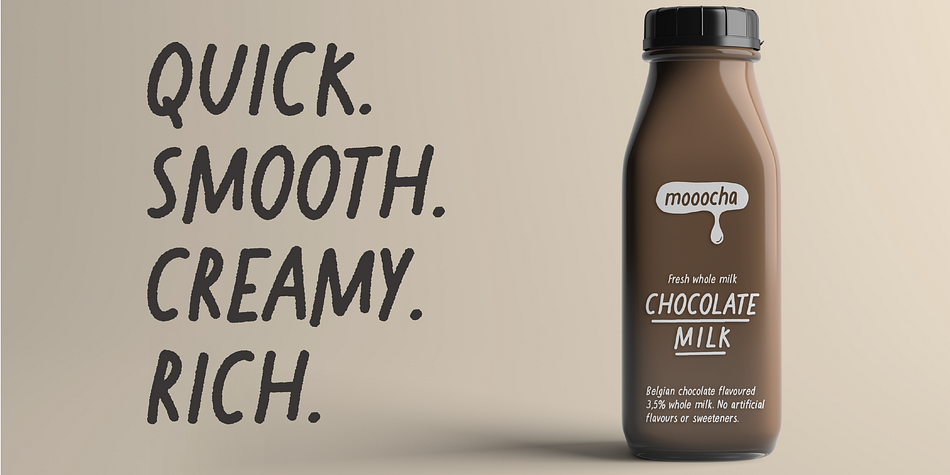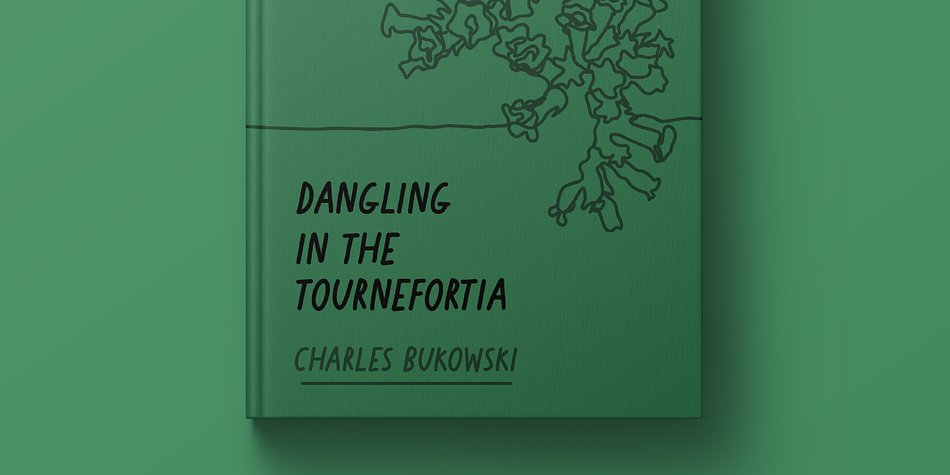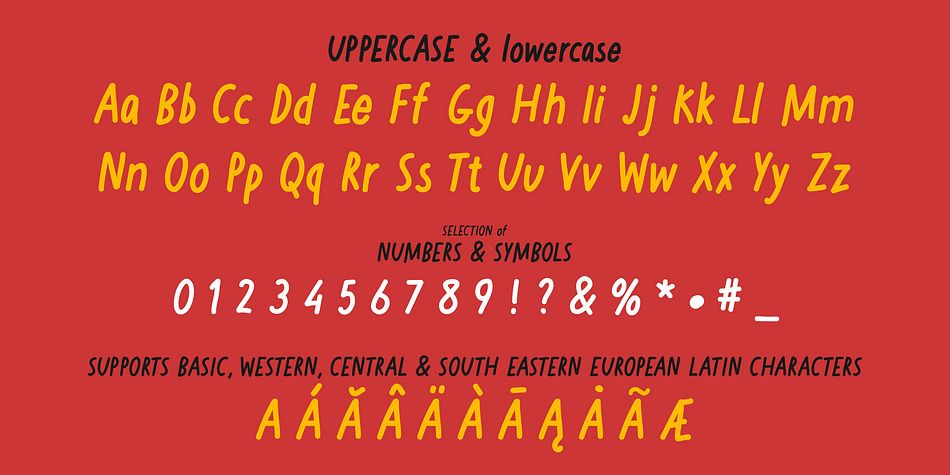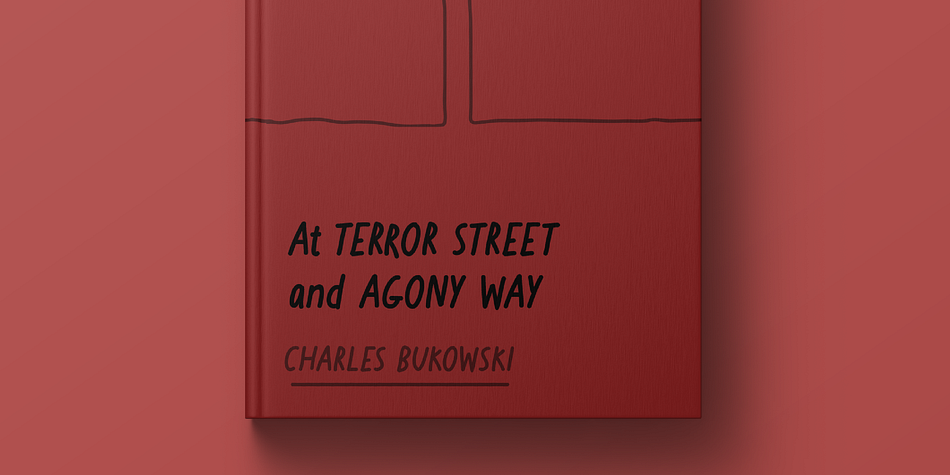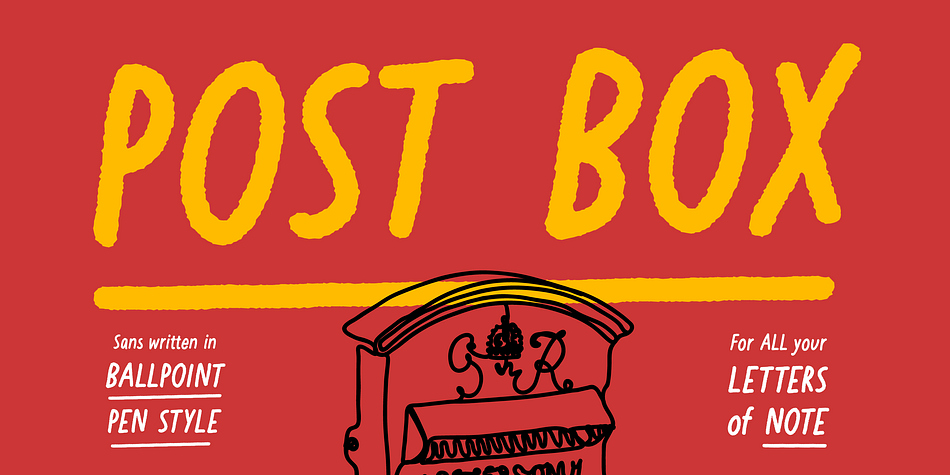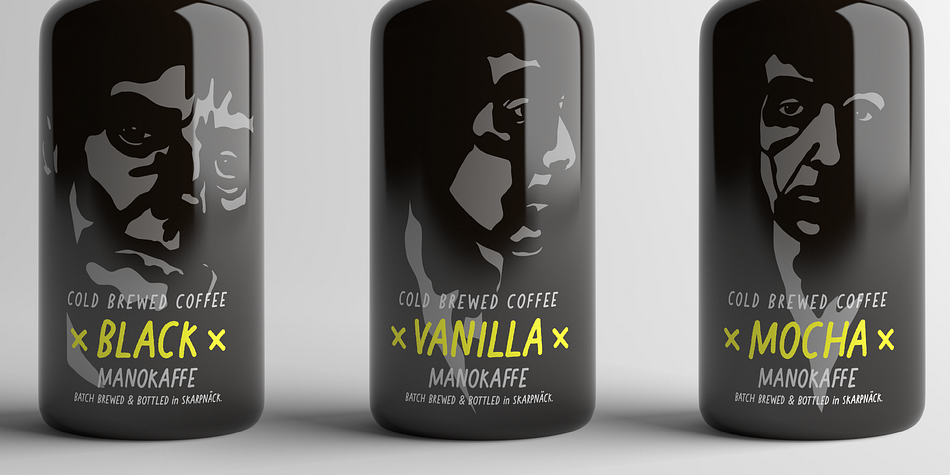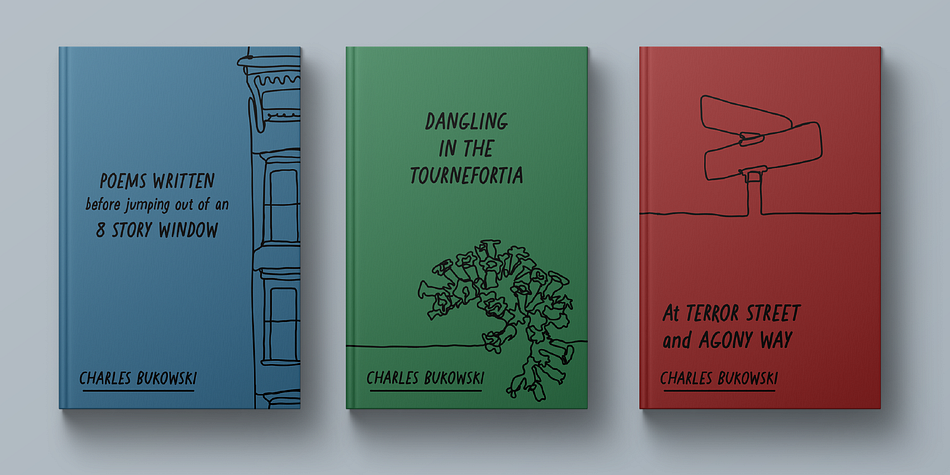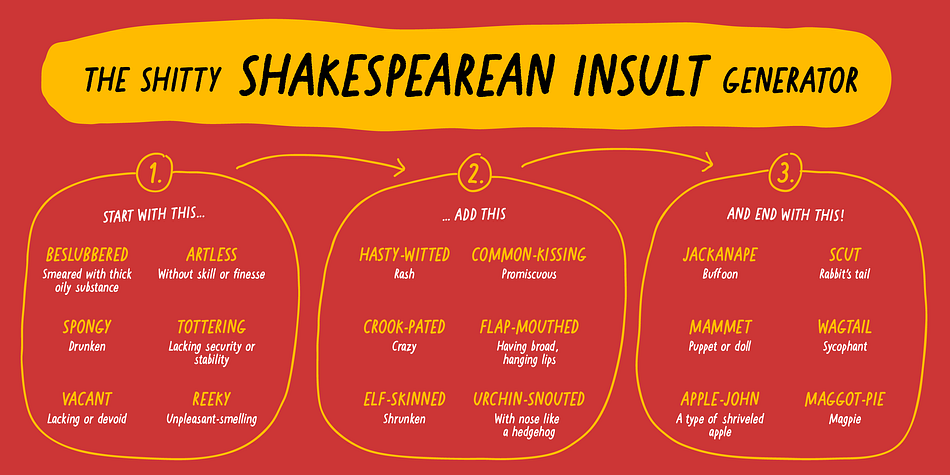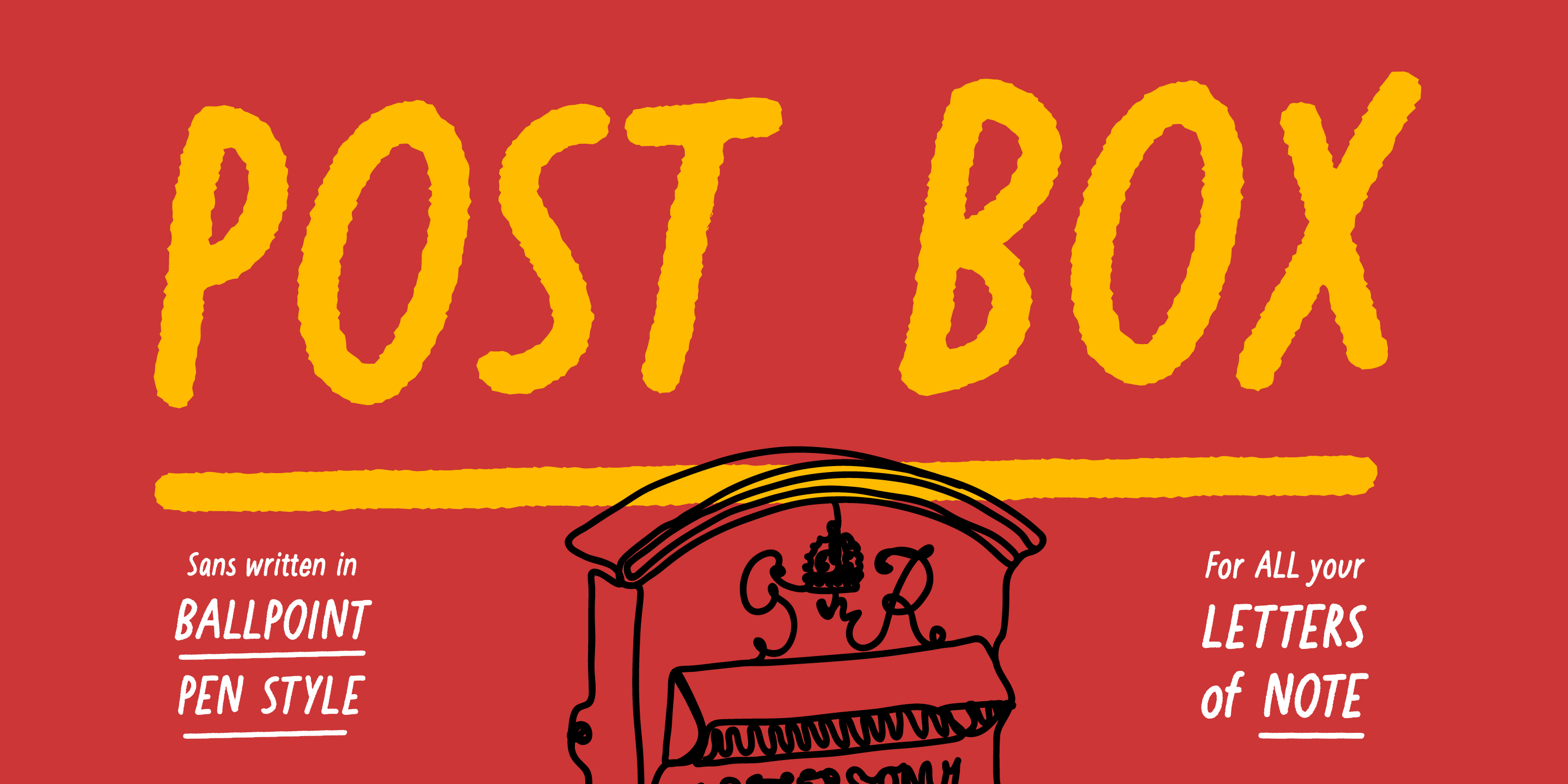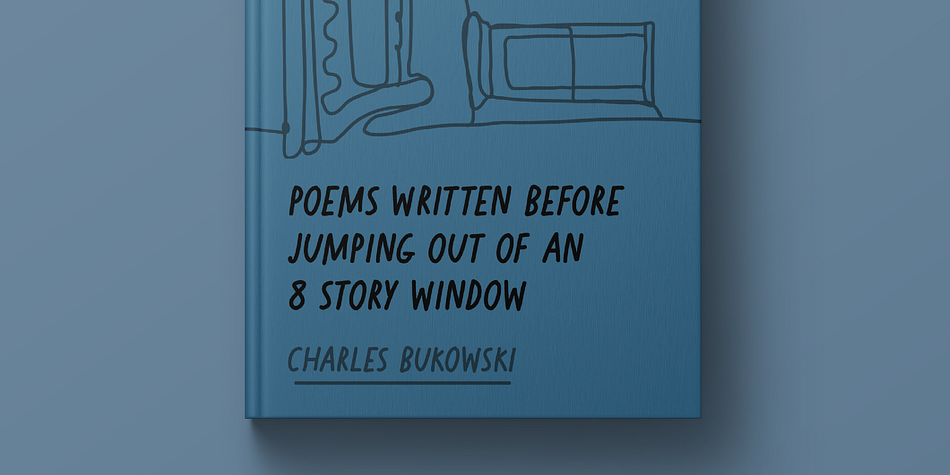
Designed by Daniel Feldt, Post Box is a hand drawn font family. This typeface has two styles and was published by Great Scott.
Written in a ballpoint pen style Post Box is a neighborly sans serif is slightly condensed and slanted. Scribbled quickly but readable. Exact but still human.
Perfect for print, package and display use. You can also use it in shorter paragraph text.
Post Box comes in two styles, “Regular” and “Rough”, and with the 340+ glyphs it supports basic, western, central and south eastern latin languages.